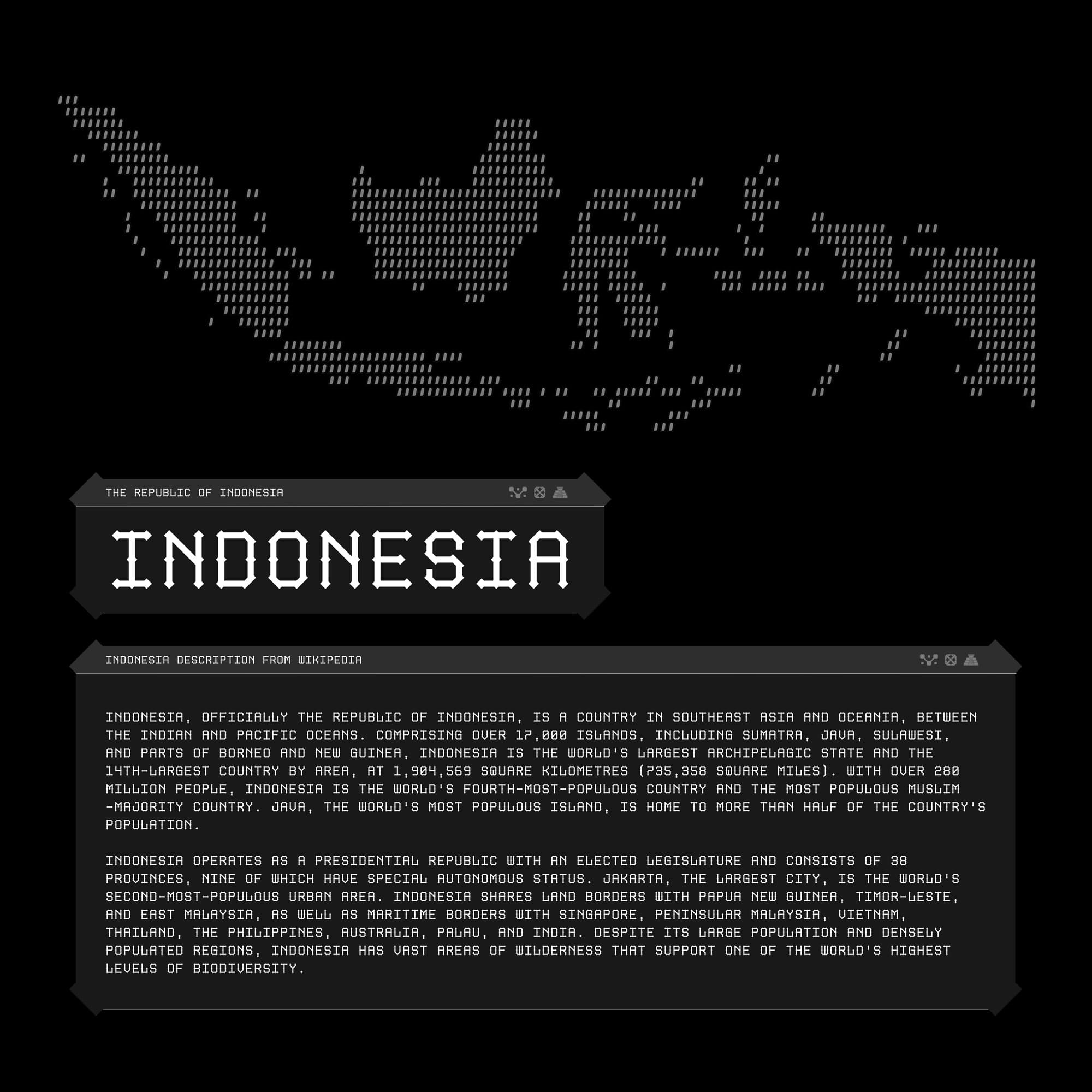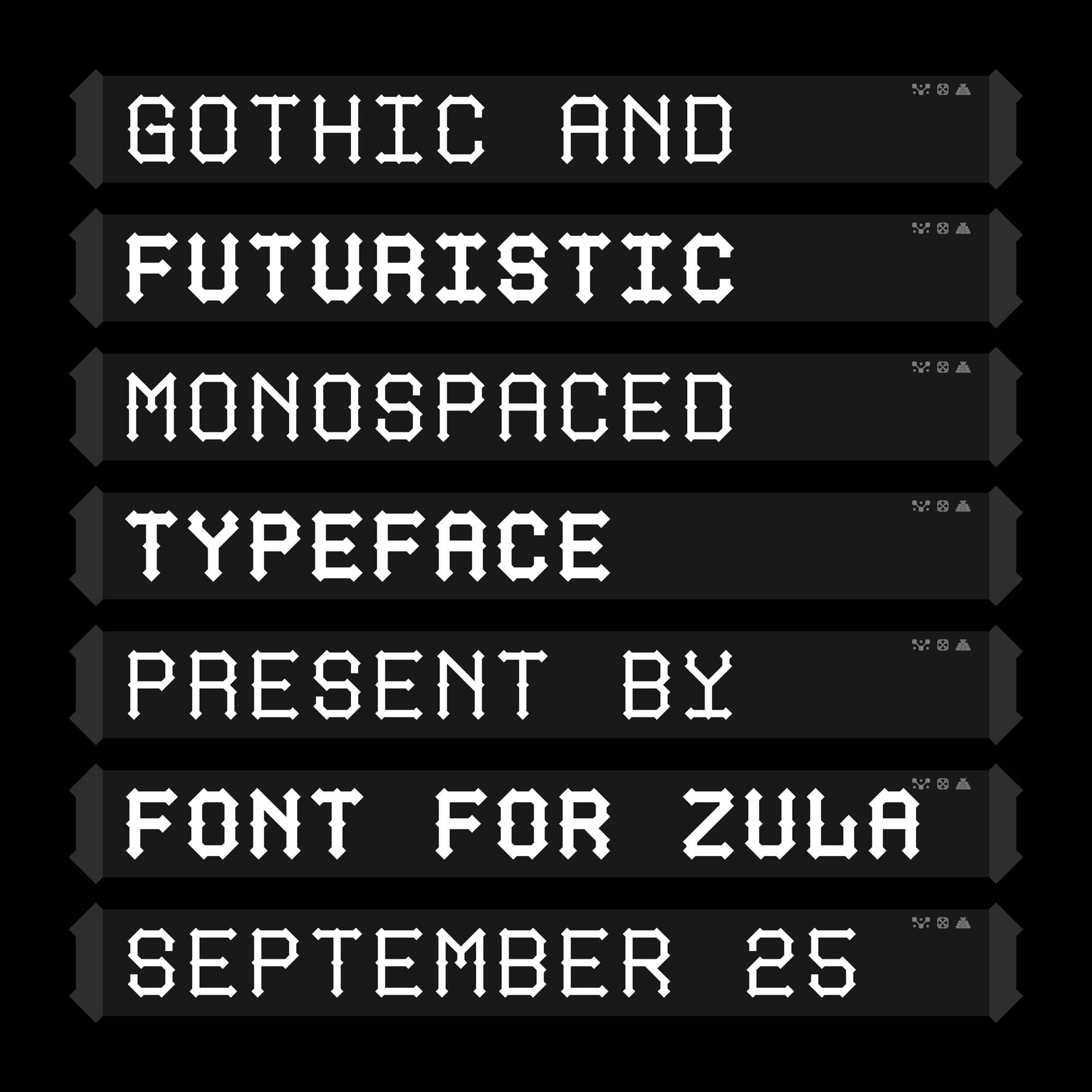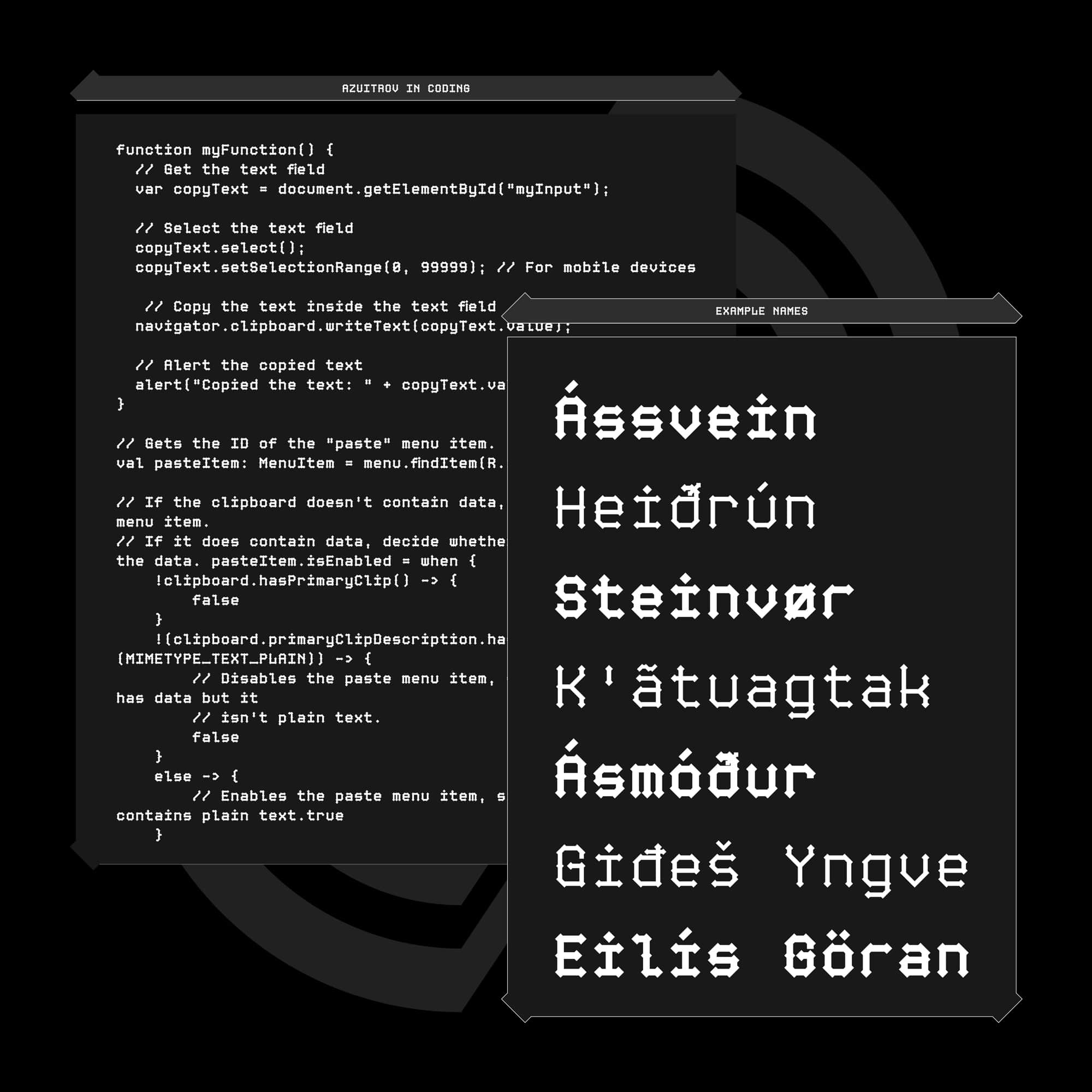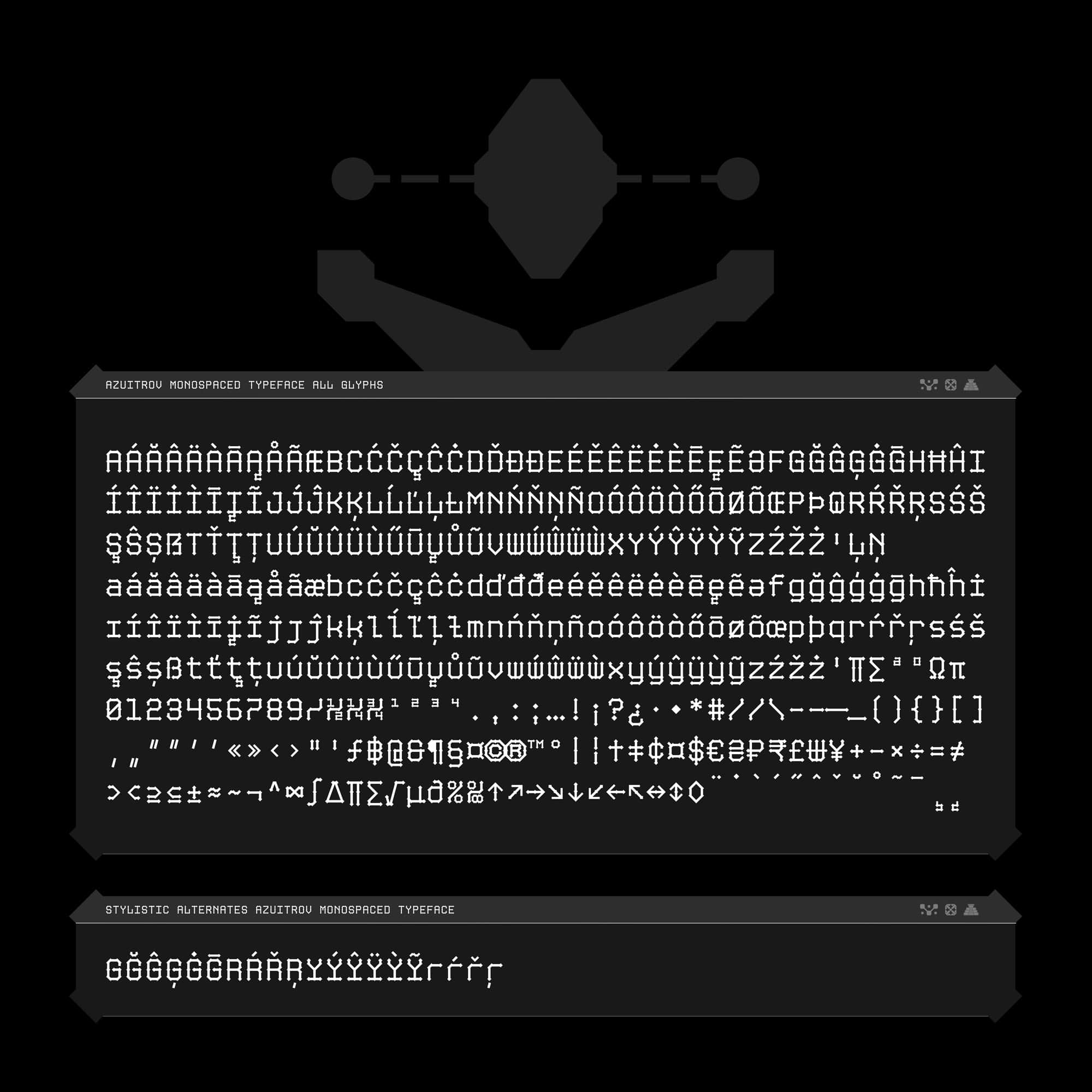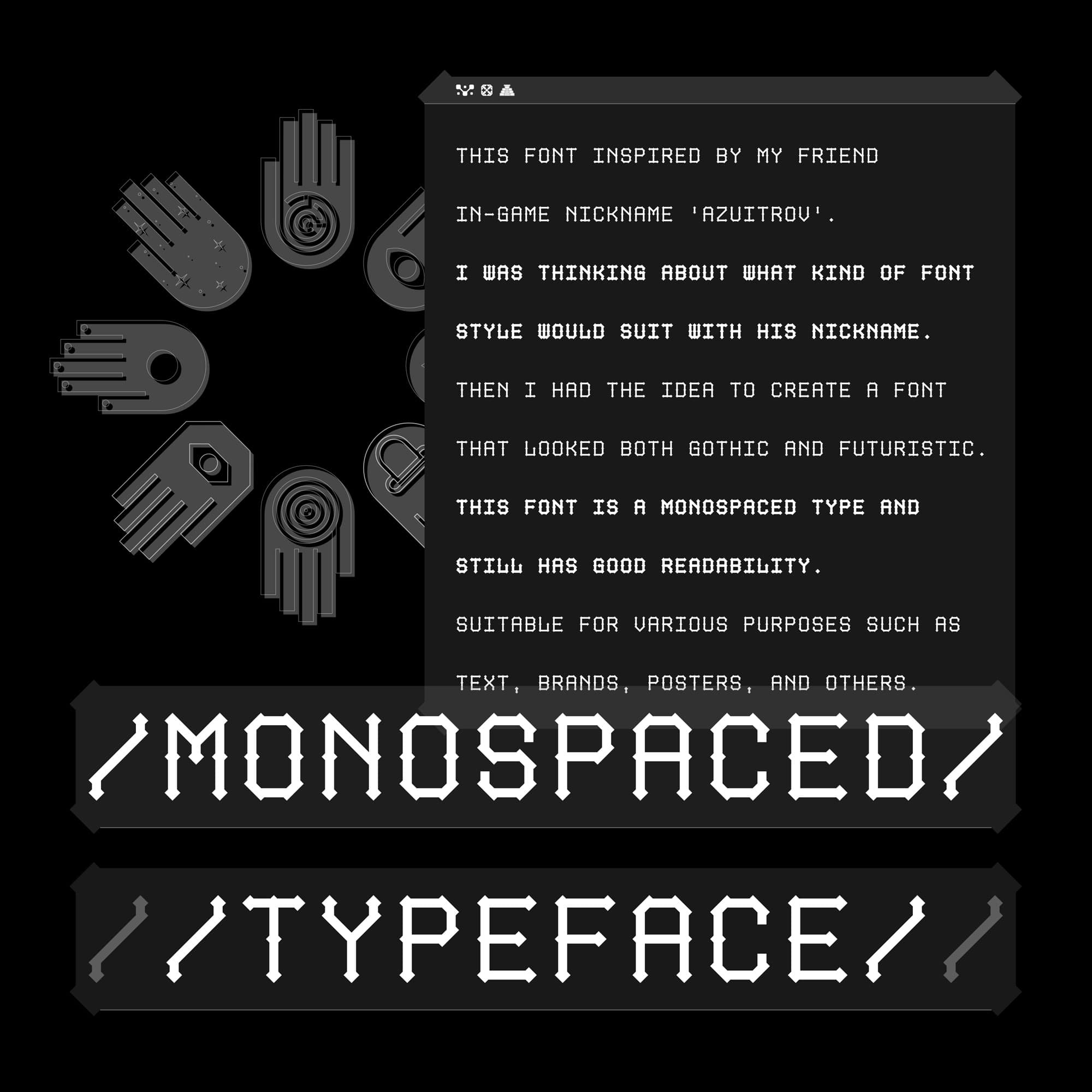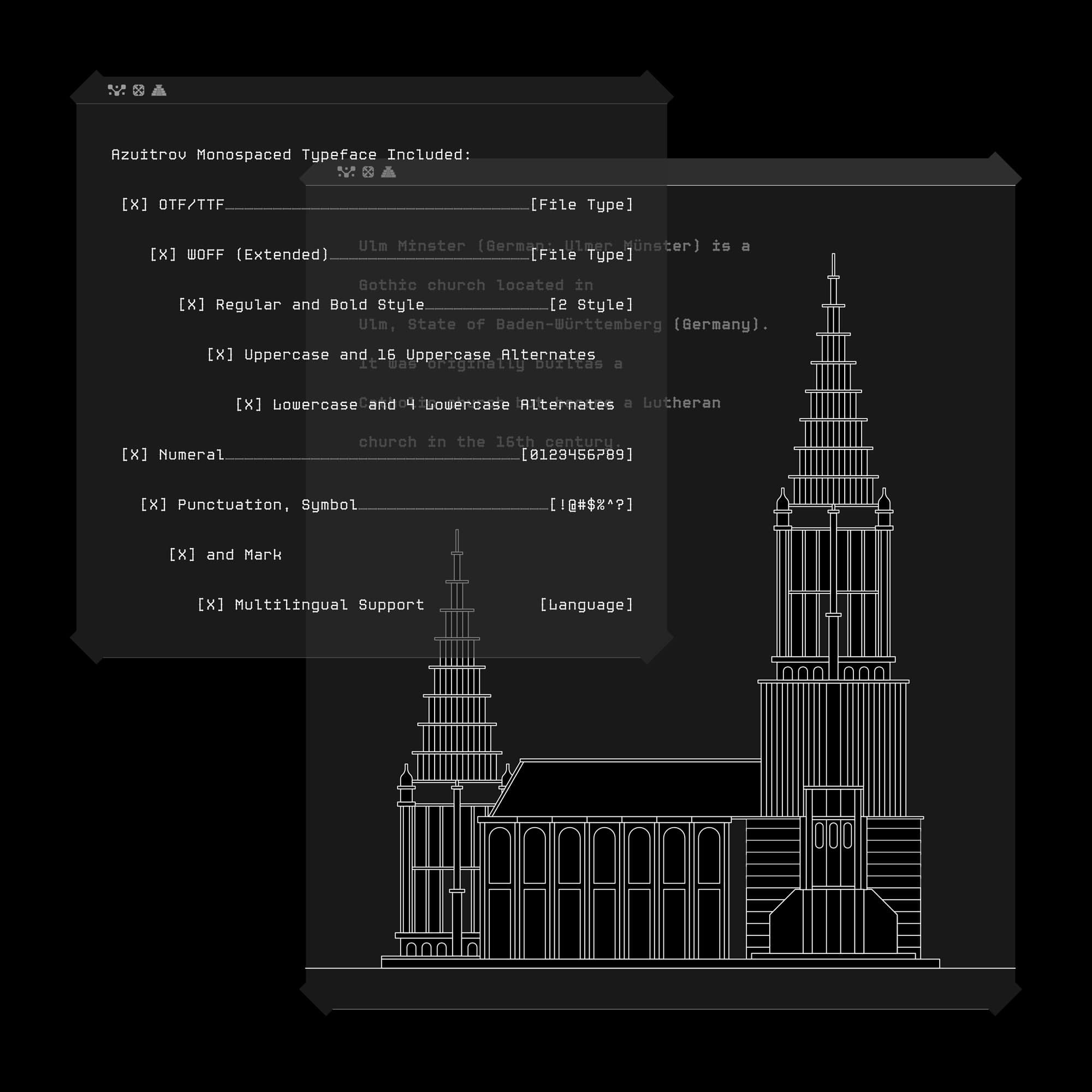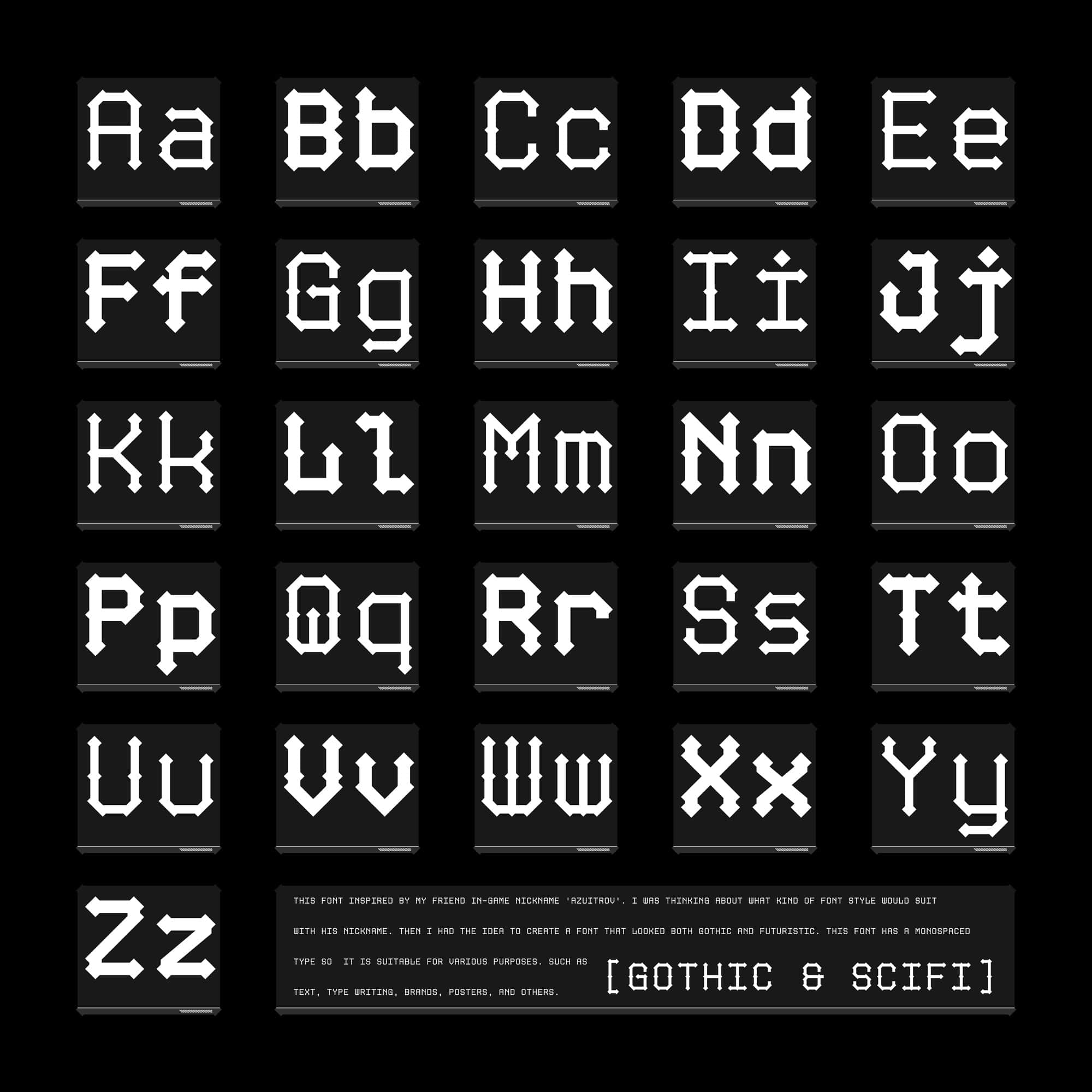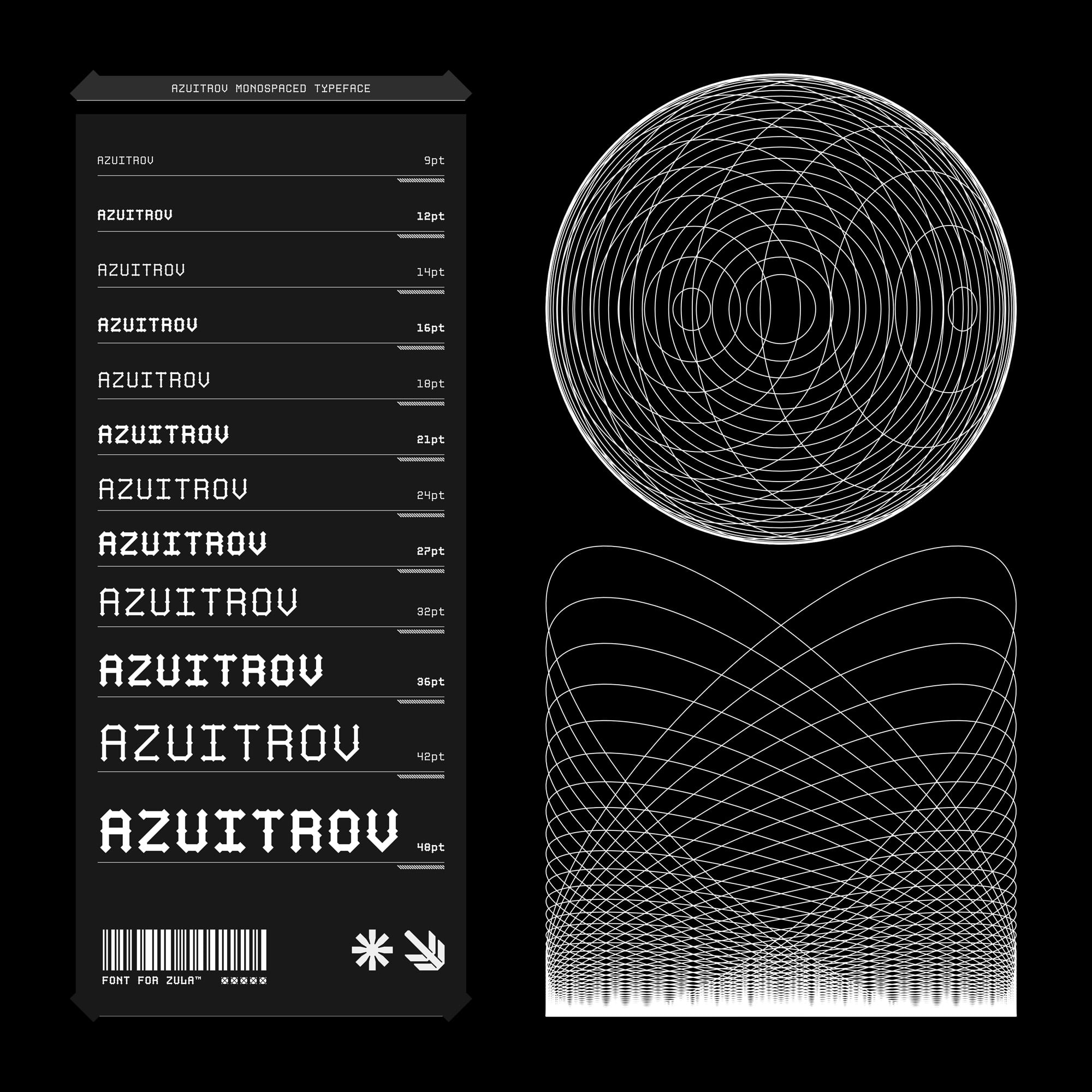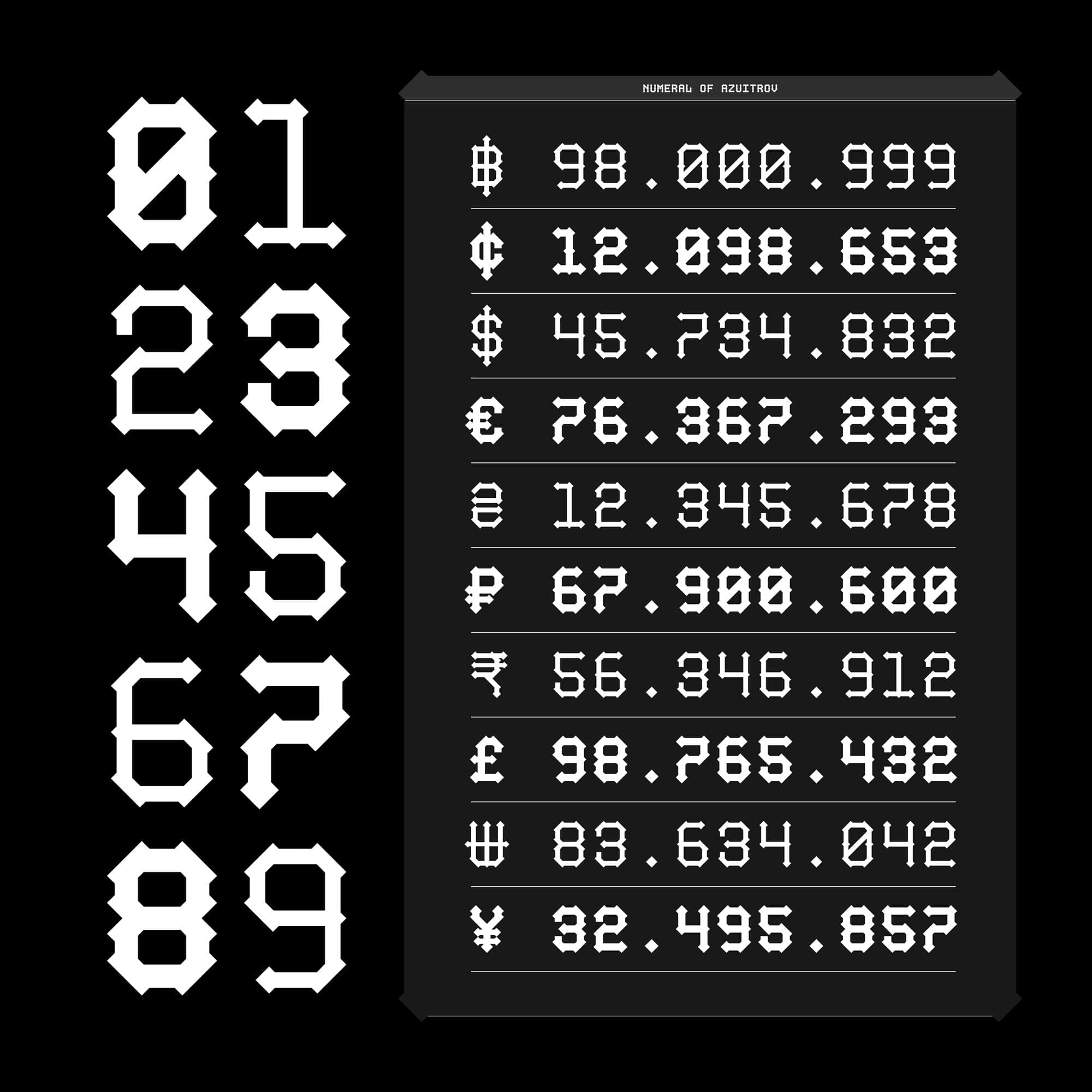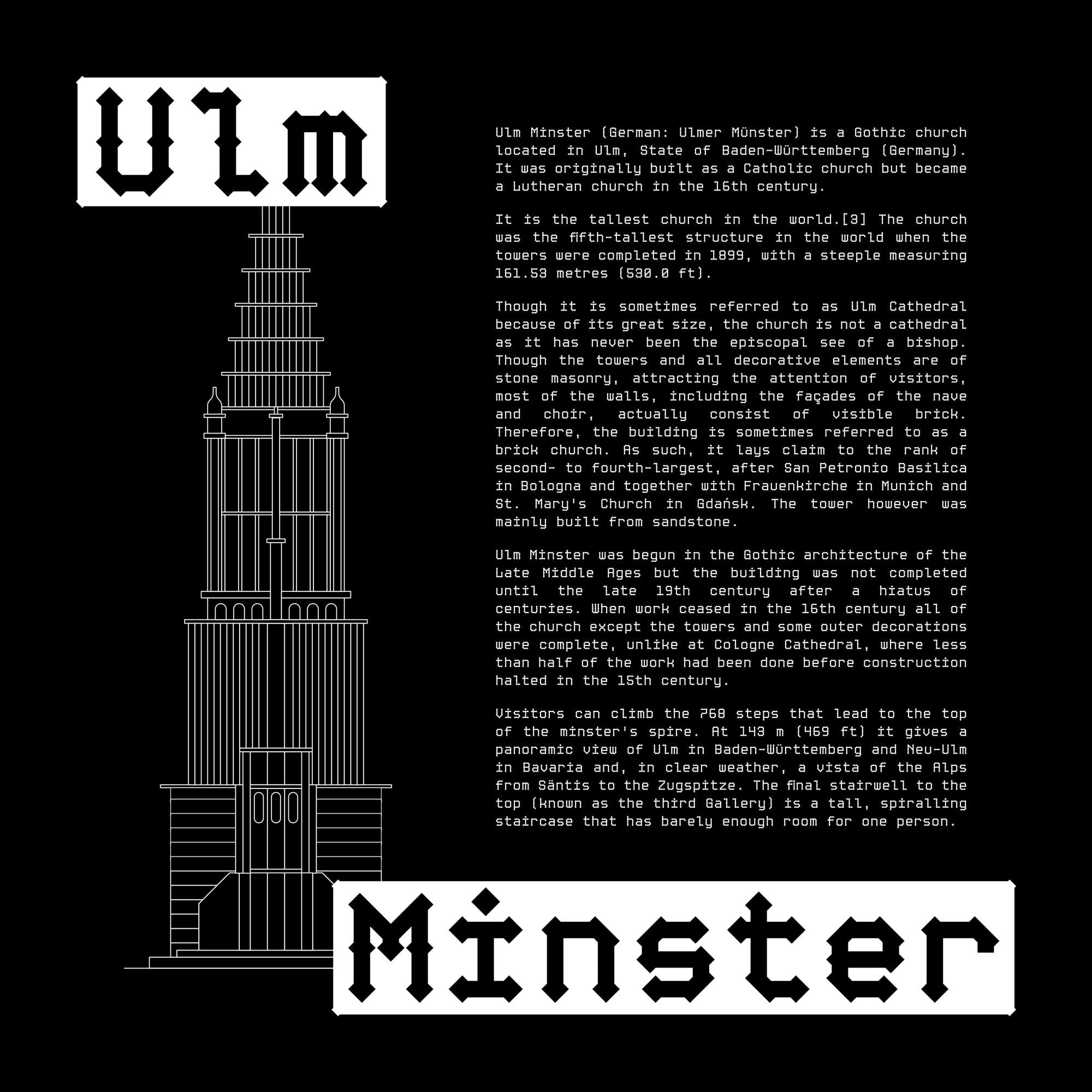
Azuitrov is a gothic-inspired futuristic font with a unique monospaced design that combines sharp detail with clean readability. Perfect for designers and creators, this versatile typeface works beautifully across branding, posters, logos, digital interfaces, and display text. Whether you’re looking for a bold gothic font or a modern futuristic font, Azuitrov delivers striking character while remaining highly legible. Elevate your projects with this distinctive typeface that’s built to stand out.
– Regular and Bold Style
– Uppercase and 12 Uppercase Alternates
– Lowercase and 4 Lowercase Alternates
– Numerical
– Punctuation, Symbol
– and Mark
– Multilingual Support